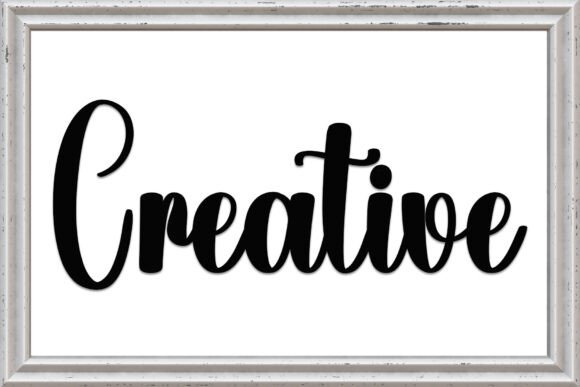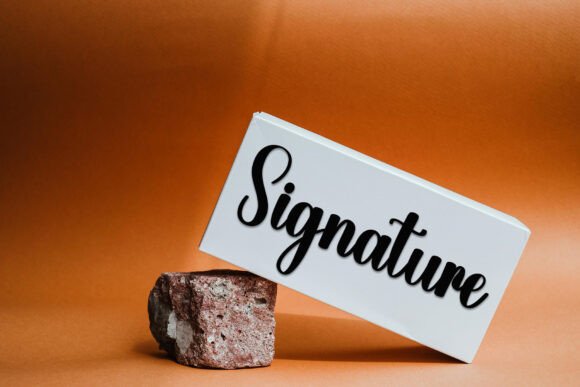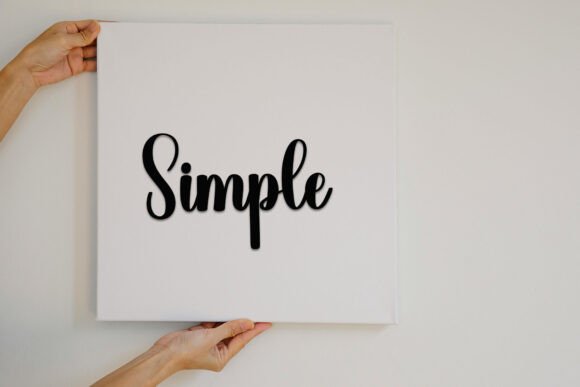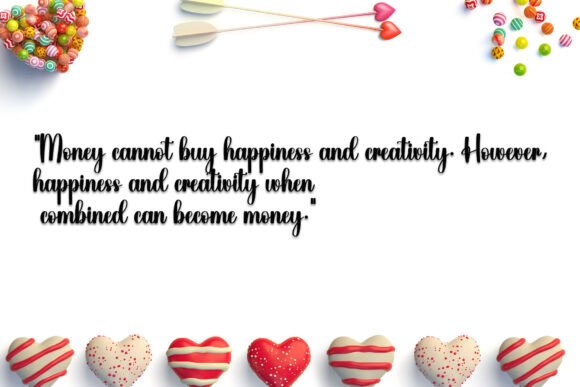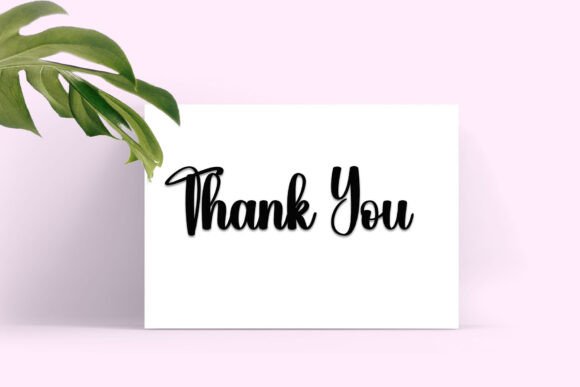
The Perfect Touch for Your Masterpiece
Have you ever been in the middle of a design project, and suddenly, a spark of creativity hits you? You envision the perfect font, one that captures the essence of elegance and sophistication. For designers, finding that perfect font can be a game-changer, and that’s exactly what the Awards Font offers.
This beautiful, flowing handwritten font is more than just a design element – it’s an experience. With its distinct and timeless style, the Awards Font is perfect for creating spectacular designs that leave a lasting impression. Whether you’re working on a project that requires a touch of luxury or a dash of whimsy, this font is sure to deliver.
Awards Font Key Features
- Unique Characteristics: Awards Font features a luxurious, high-end design with elegant lines, making it perfect for award ceremonies, special events, and high-end branding.
- Font Styles: The font includes multiple styles, including Regular, Italic, Bold, and Bold Italic, providing flexibility for designers to create visually appealing and consistent typography.
- Scalability: Awards Font is designed to be highly scalable, ensuring that it looks great in various sizes and resolutions, from small text to large headings.
Awards Font Review
Overall, I think Awards Font is a solid choice for those looking to add a touch of prestige to their designs. ✨ The font’s elegant and modern feel makes it perfect for award shows, corporate events, and other high-end branding.
- ✨ Elegant and modern design: Awards Font exudes sophistication and refinement, making it ideal for high-end branding and marketing materials.
- ✨ High-quality vector graphics: The font is built using high-quality vector graphics, ensuring that it scales well and looks great in various sizes and resolutions.
- ✨ Wide range of languages supported: Awards Font supports a wide range of languages, making it a versatile choice for designers working on global projects.
- ⚠️ Limited character set: Awards Font’s character set is limited, which may not be suitable for designers who need to work with a wide range of characters or languages.
- ⚠️ Not suitable for body text: Due to its elegant and modern design, Awards Font is not the best choice for body text, as it may be difficult to read in large quantities.
Overall, I think Awards Font is a great choice for designers who need a high-end font for their projects. While it has some limitations, its elegant design and high-quality vector graphics make it a solid choice for award shows, corporate events, and other high-end branding.
Awards Font: A Practical Application Guide
Use Awards Font to create a sense of grandeur and importance in your designs.
Pair it with other elegant fonts for a sophisticated look.
Experiment with different font sizes and colors to achieve the desired effect.
Awards Font is commonly used in:
1. Award ceremonies and events.
2. Luxury product packaging and branding.
3. High-end marketing materials and presentations.